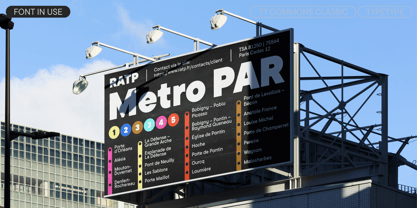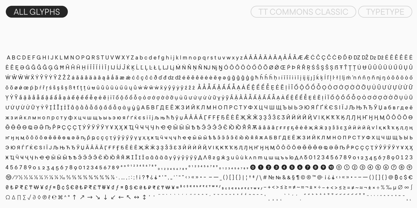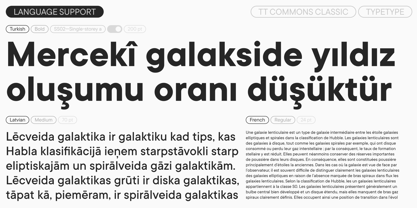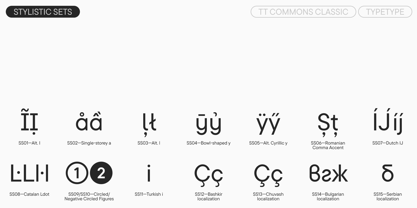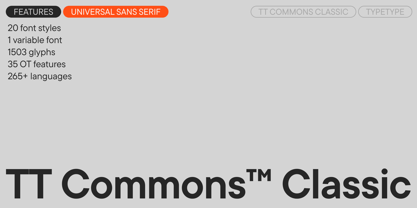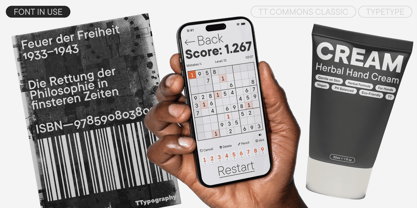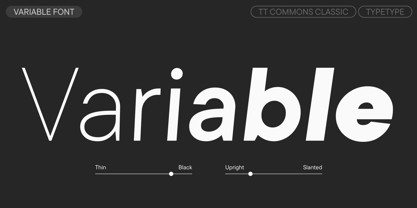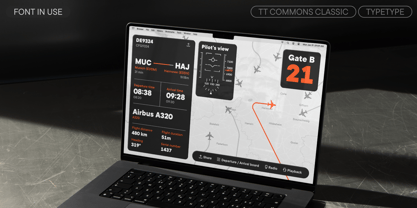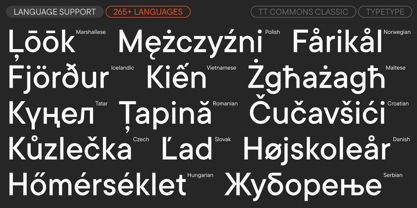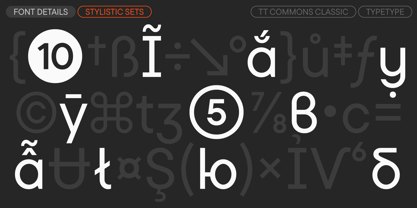
TT Commons Classic
Die Schriftfamilie TT Commons Classic wurde von Ivan Gladkikh, Antonina Zhulkova, Marina Khodak, TypeType Team entworfen und von TypeType veröffentlicht. TT Commons Classic enthält 21 Stile und Familienpaketoptionen.
Meet TT Commons™ Classic version 2.200! We have updated the font styles and added new features, glyphs, and languages. TT Commons™ Classic is a universal sans serif for everyday tasks. Its history is inextricably linked with the history of TypeType: originally, it was the studio's official corporate font, created exclusively for internal use. However, thanks to active user interest, it soon turned into a full-fledged commercial typeface. The name derives from the word "common," reflecting its universal and ubiquitous nature. The font design was developed to be used for the widest possible range of tasks. Minimal stroke contrast, a closed aperture, and geometric forms make TT Commons™ Classic ideal for setting running text. On the other hand, it can also be used for display purposes, despite the intentional absence of decorative elements: the font attracts attention with its conciseness, simplicity, and polished forms. In the updated version, we added an improved variable font, merging two styles (for upright and slanted characters) into a single variable system. Furthermore, new OpenType features, languages, and glyphs appeared, including glyphs for extended Latin. Thanks to its minimalism and neutral character, TT Commons™ Classic is suitable for any sector. Small caps, stylistic alternates, ligatures, arrows, various figure types, and other features make the typeface even more functional. TT Commons™ Classic and the bestseller TT Commons™ Pro are based on the same graphics, but they have different contents and usage possibilities. TT Commons™ Classic is for you if you are looking for proven solutions for regular tasks, while TT Commons™ Pro is for when you need extended functionality with a large number of font styles, features, stylistic sets, and languages. TT Commons™ Classic 2.200 includes: - 21 font styles: 10 uprights, 10 italics, and 1 variable font - 1,503 glyphs per style - 35 OpenType features - Over 265 languages TT Commons™ Classic — a flawless typographic classic!